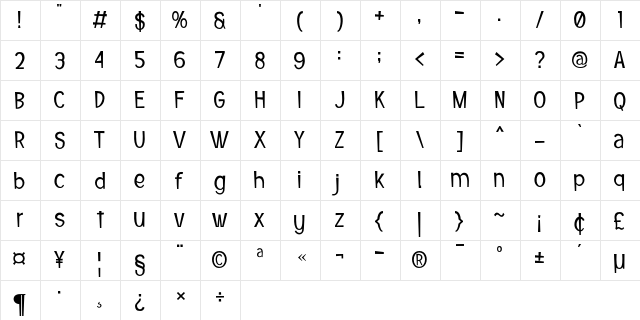
Gembrik Regular
| Foundry | Sons Of Baidlowi Typefoundry |
| Designer | Azmil Bahar |
Design Context for Gembrik Typeface
Gembrik is a composed and adaptable typeface that performs quietly and consistently across a wide range of design contexts.